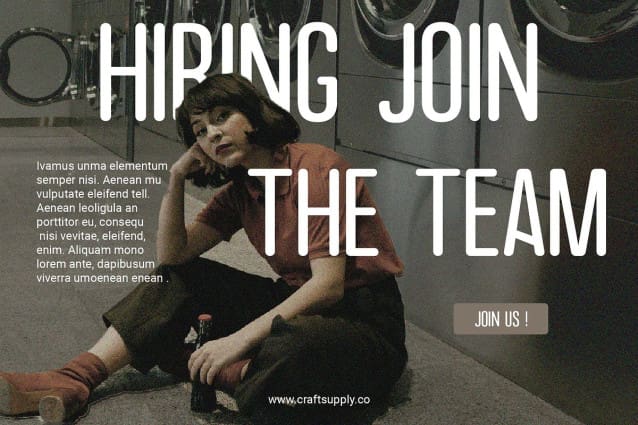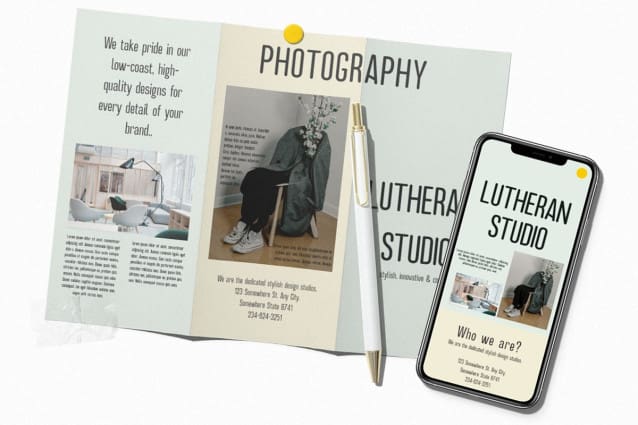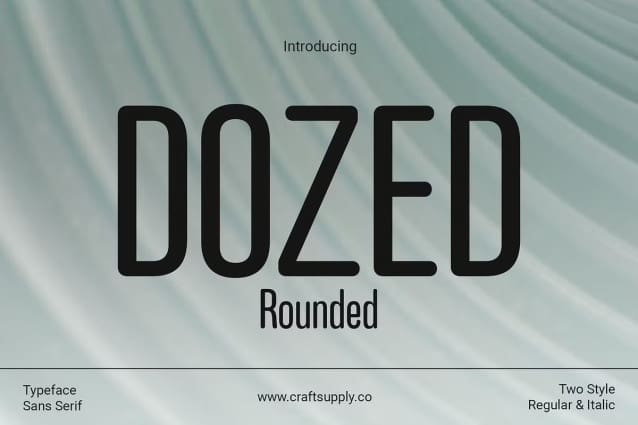
Dozed Rounded Font
Dozed Rounded Font: Modern Elegance in Every Character. Sleek and Low-Contrast Dozed Rounded presents a sleek and low-contrast sans serif typeface, perfect for contemporary design projects. Its condensed form ensures efficient use of space while maintaining readability.
Softened Stem Endings With rounded stem endings, This font exudes a subtle softness, adding a touch of warmth to its modern aesthetic. This feature enhances legibility and contributes to a friendly vibe.
Versatile Application Ideal for various design applications, This font adapts effortlessly to branding, web design, and editorial layouts. Its clean lines and rounded details offer versatility and adaptability in diverse contexts.
Modern Elegance In conclusion, This font embodies modern elegance with its low-contrast and condensed style and rounded stem endings. Its versatility and readability make it a valuable addition to any designer’s toolkit, ensuring impactful and engaging visual communication.